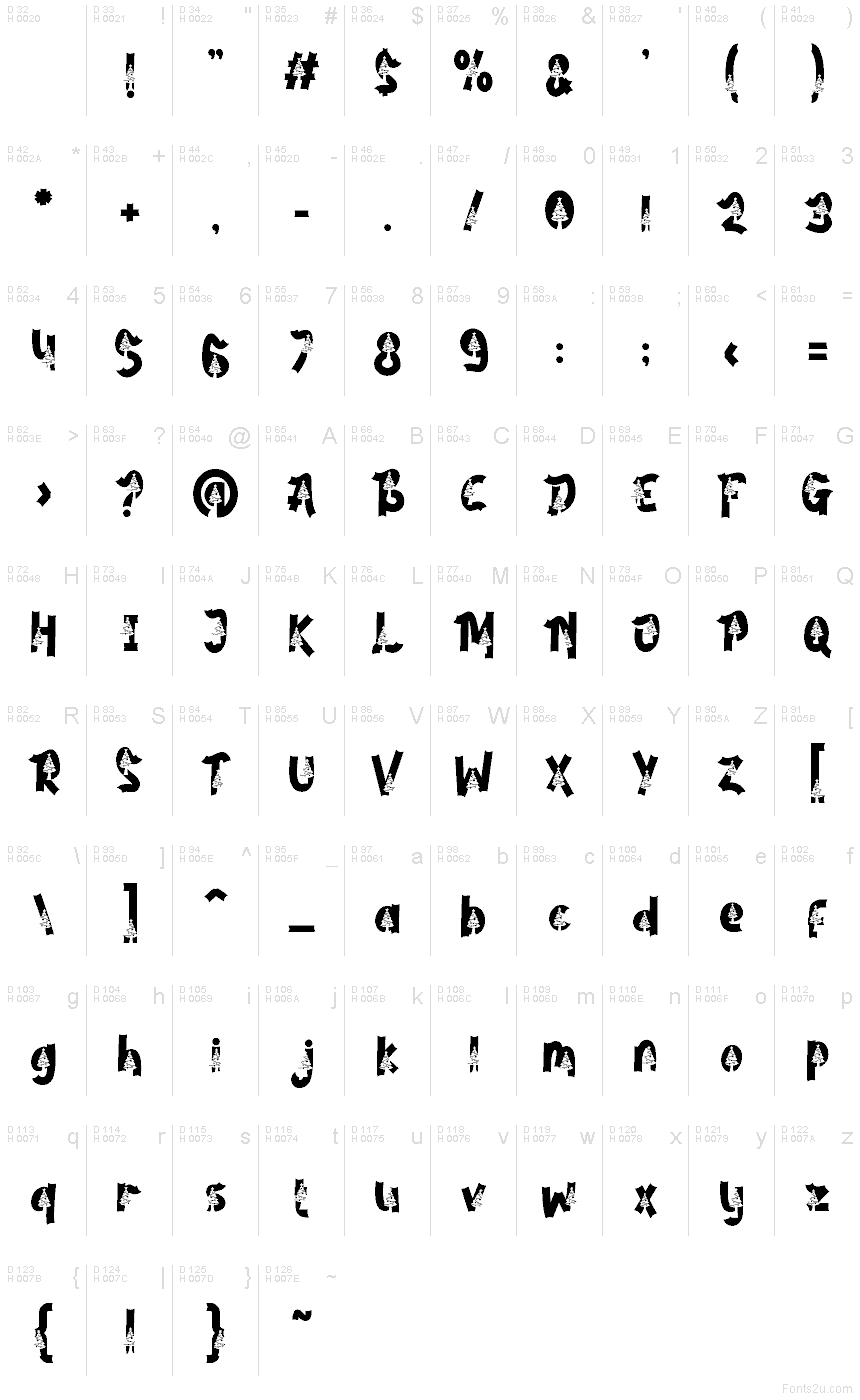
Modern Bauble Bliss Six
Modern Bauble Bliss Six font by PutraCetol Studio is a free Christmas holiday decorative typeface from the Modern Bauble Bliss family. Bold, inky letterforms are packed with tiny tree and bauble shapes, like ornaments clustered on a dark evergreen branch, creating an instant festive mood without needing extra graphics. The chunky curves and tight rhythm keep words readable while still feeling lush and handcrafted.
Using Modern Bauble Bliss Six, you can quickly dress up Christmas cards, party invitations, gift tags, Advent calendars, seasonal posters, and cozy social media graphics. This free font shines at larger sizes where the ornament details can really sparkle; pair it with a clean sans serif for body text to keep your layouts cheerful but clear.